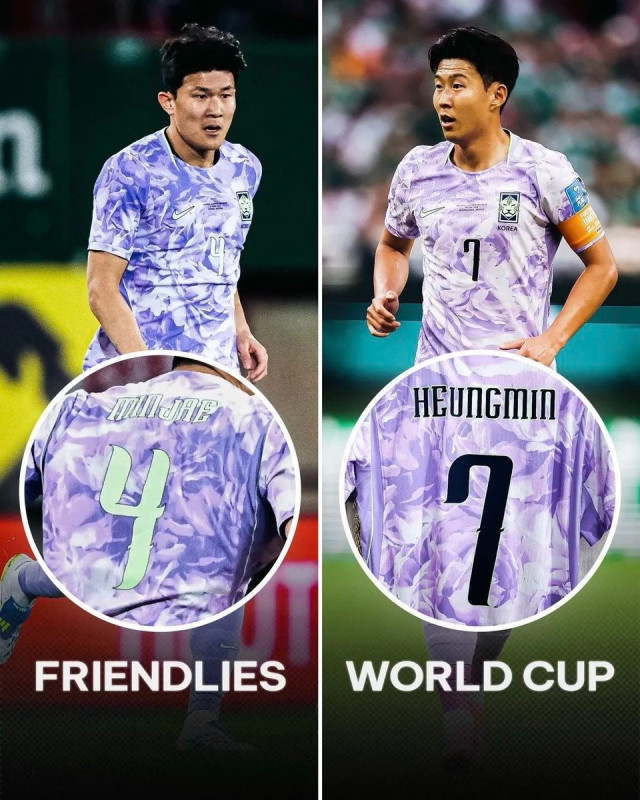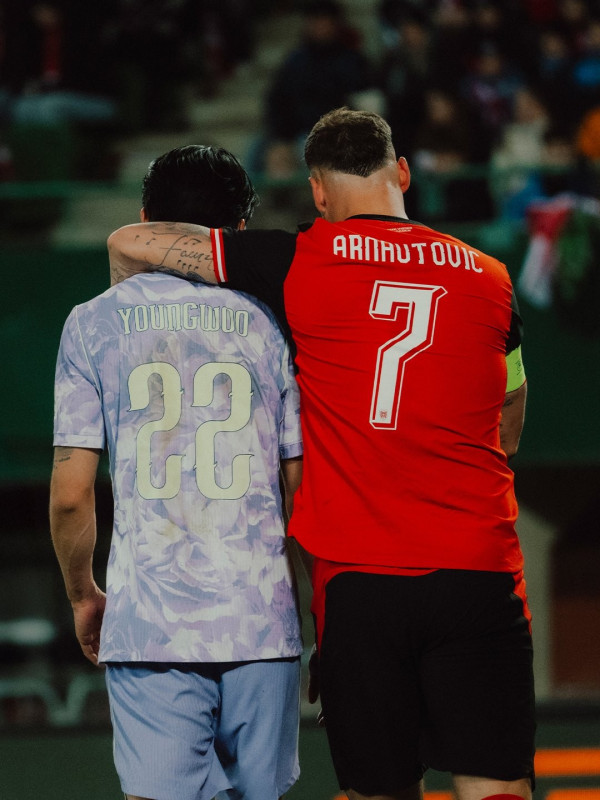
South Korea have been forced to change the nameset color on their 2026 away kit to comply with FIFA equipment regulations. The original light green names and numbers, which were worn during the team's pre-tournament friendlies, have been replaced with navy for the 2026 World Cup.
The change was made to increase the visibility of the names and numbers from a distance. The original light green color did not provide enough contrast against the light purple and white camouflage-style pattern of the Nike away shirt, violating FIFA's strict rules regarding the legibility of player identification.
The updated navy nameset was debuted in South Korea's second match of the tournament, providing a stark contrast to the shirt's base design and ensuring full compliance with FIFA's visibility standards.